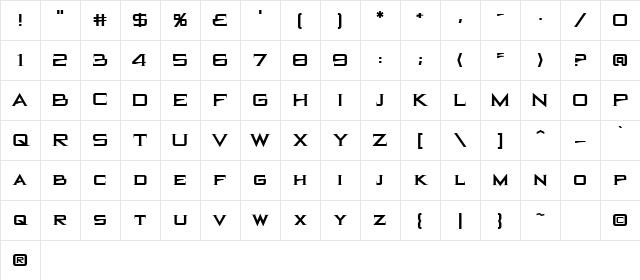
BlackHole BB is a composed and adaptable typeface that performs quietly and consistently across a wide range of design contexts.
Pro Tip: Use BlackHole BB in both headline and body roles to test its range before committing to a single application.